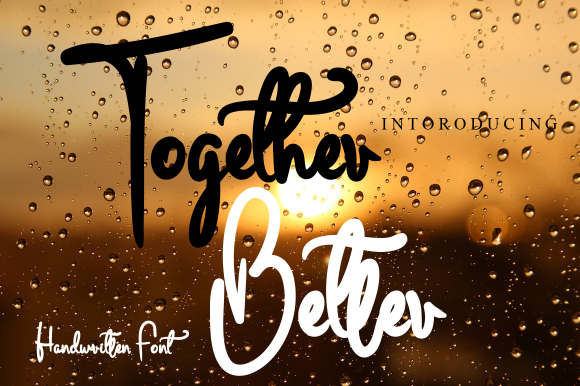
Step into a world of authentic beauty with Together Better Font, a captivating script font family that captures the essence of handwritten elegance. This remarkable font is the brainchild of A2-lucky, a renowned font designer who has poured their heart and soul into creating a font that resonates with creativity and individuality.
Together Better Font exudes a relaxed and refreshing vibe, reminiscent of a gentle paintbrush gliding across a canvas. Its natural and distinctive style makes it an ideal choice for designers seeking to evoke a sense of authenticity and connection in their projects.
Immerse yourself in the endless possibilities that Together Better Font presents. From wedding invitations that radiate romance to branding projects that demand a touch of sophistication, this font rises to every occasion with grace and charm. Its versatility is truly remarkable, adapting seamlessly to a myriad of designs, from social media graphics to product packaging.
Unleash your creativity and explore the boundless variations that Together Better Font has to offer. Its fluid strokes and charming imperfections add a human touch that captivates audiences, making it the perfect font for personal projects, heartfelt messages, and artistic expressions.
Embark on a creative journey with Together Better Font, a font that transcends the ordinary and ignites the imagination. Its ability to effortlessly elevate designs sets it apart, making it a must-have for discerning designers seeking to create projects that resonate with authenticity and emotional depth.